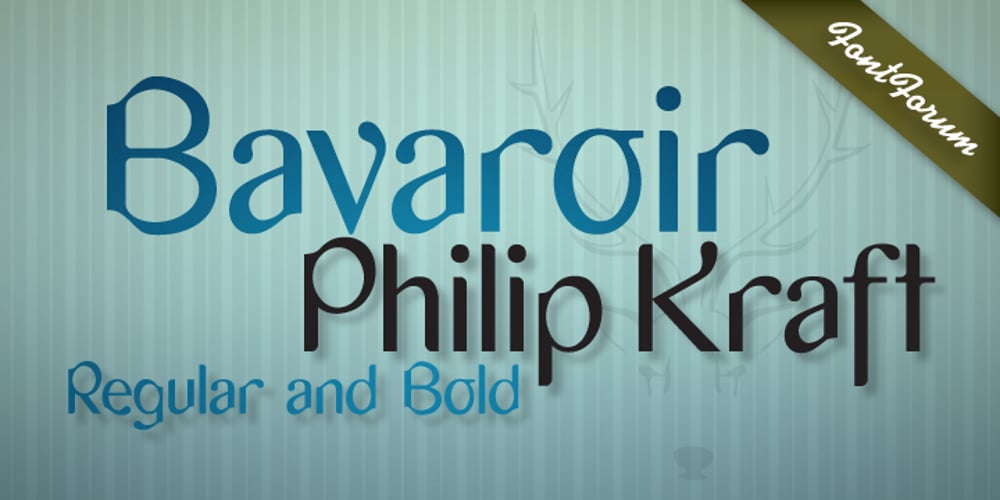
Bavaroir Font Family was designed by Philip Kraft and published by URW Type Foundry. Bavaroir contains 2 styles and family package options. Bavaroir looks like a techno party in the throne room of Neuschwanstein: grandiose, original and still high-tech, modern, stylish and chic? anything but lifeless. The design experiment was to create a sans serif based on ?dropping endings?. Something between elegance and protest, Bavaroir coquettishly hides its edges. Although pretty narrow in design, Bavaroir still flows easily, openly and well readably, even in very small sizes. Bavaoir was designed for the URW++ FontForum.